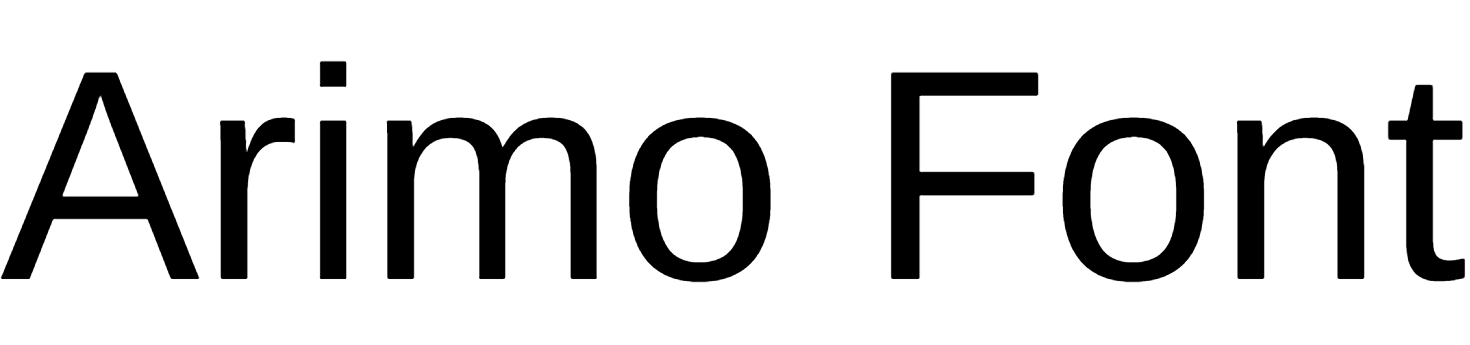
Steve Matteson designed Arimo in 2010 for Ascender Corp. as an open-source neo-grotesque sans-serif typeface commissioned under Google’s “Croscore” font initiative. Engineered as a direct, drop-in replacement for the iconic Arial font family, the typeface allows digital documents to maintain precise layout fidelity across open-source operating systems like Chrome OS and Linux.
Arimo
Arimo is a sans serif font created by Steve Matteson and released through Monotype Imaging Inc (2020).
In the notes inside the font file, Steve Matteson describes it like this: “Arimo was designed by Steve Matteson as an innovative, refreshing sans serif design that is metrically compatible with Arial(tm).”
- Designer: Steve Matteson
- Publisher: Monotype Imaging Inc
- Languages: English, Spanish, French, German, Portuguese and Italian, plus Greek, Cyrillic and Arabic characters
- OpenType features: Ligatures (including optional ones)
- Extra characters: 8 copy-and-paste alternates (Private Use Area)